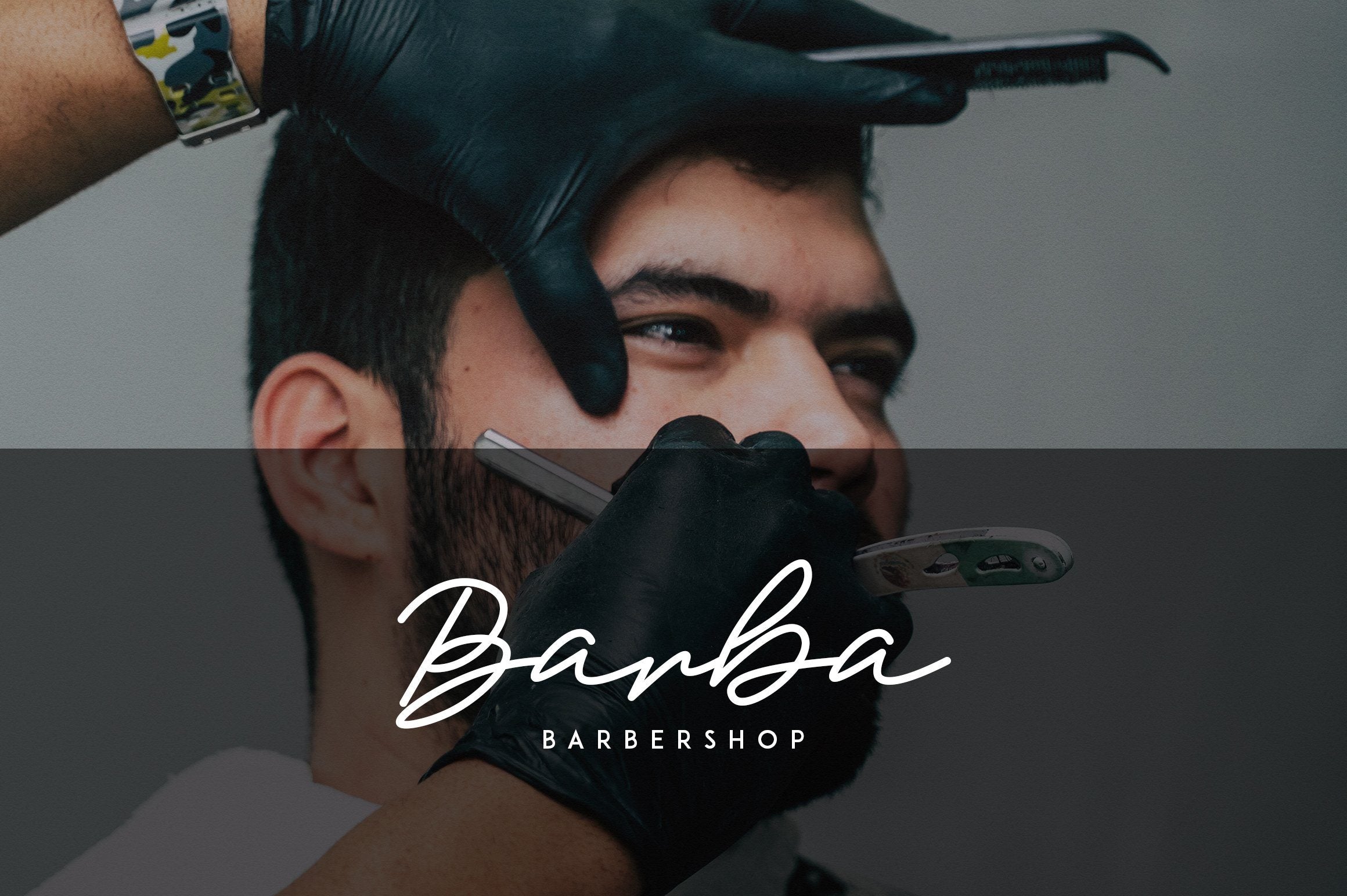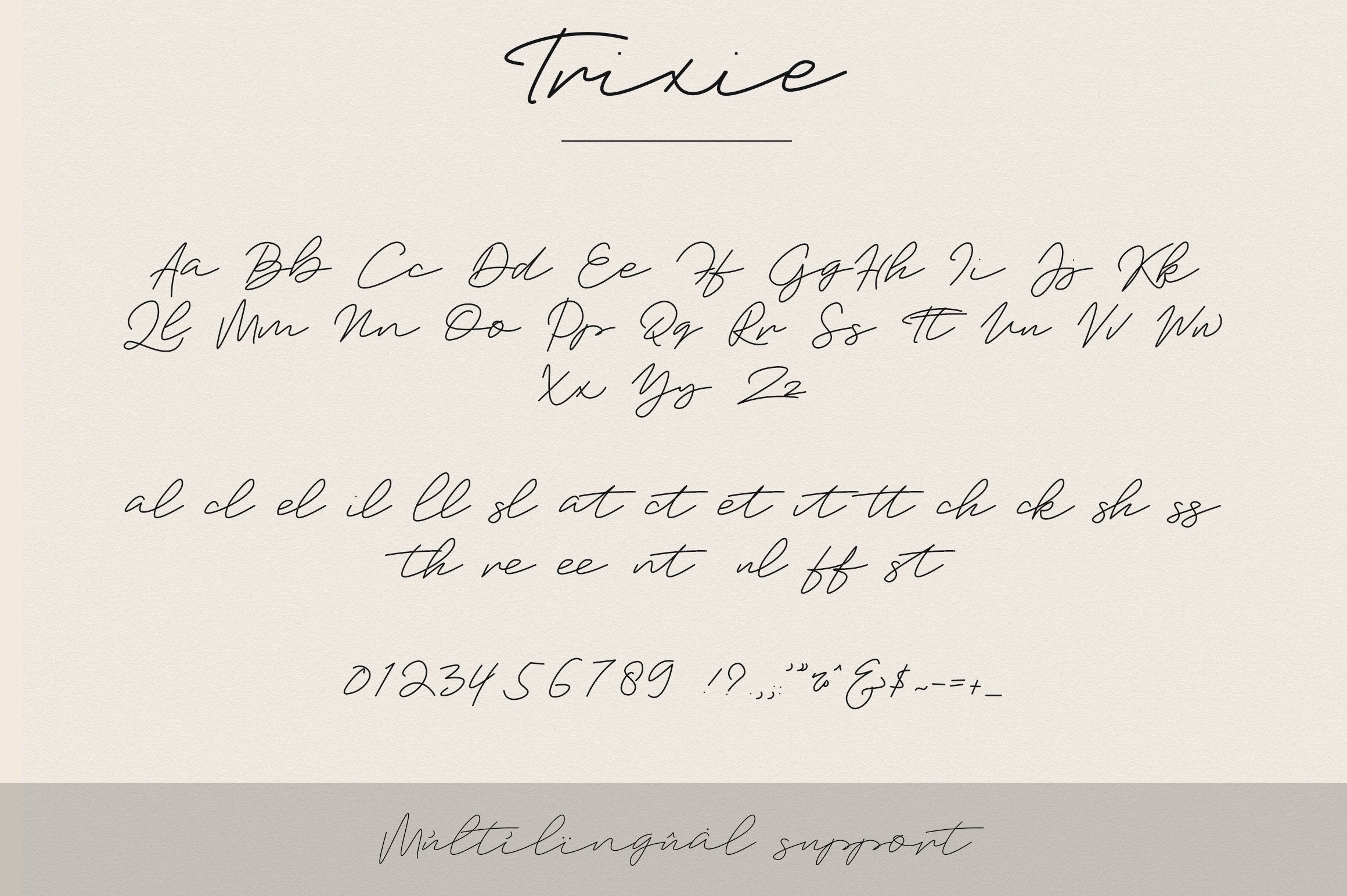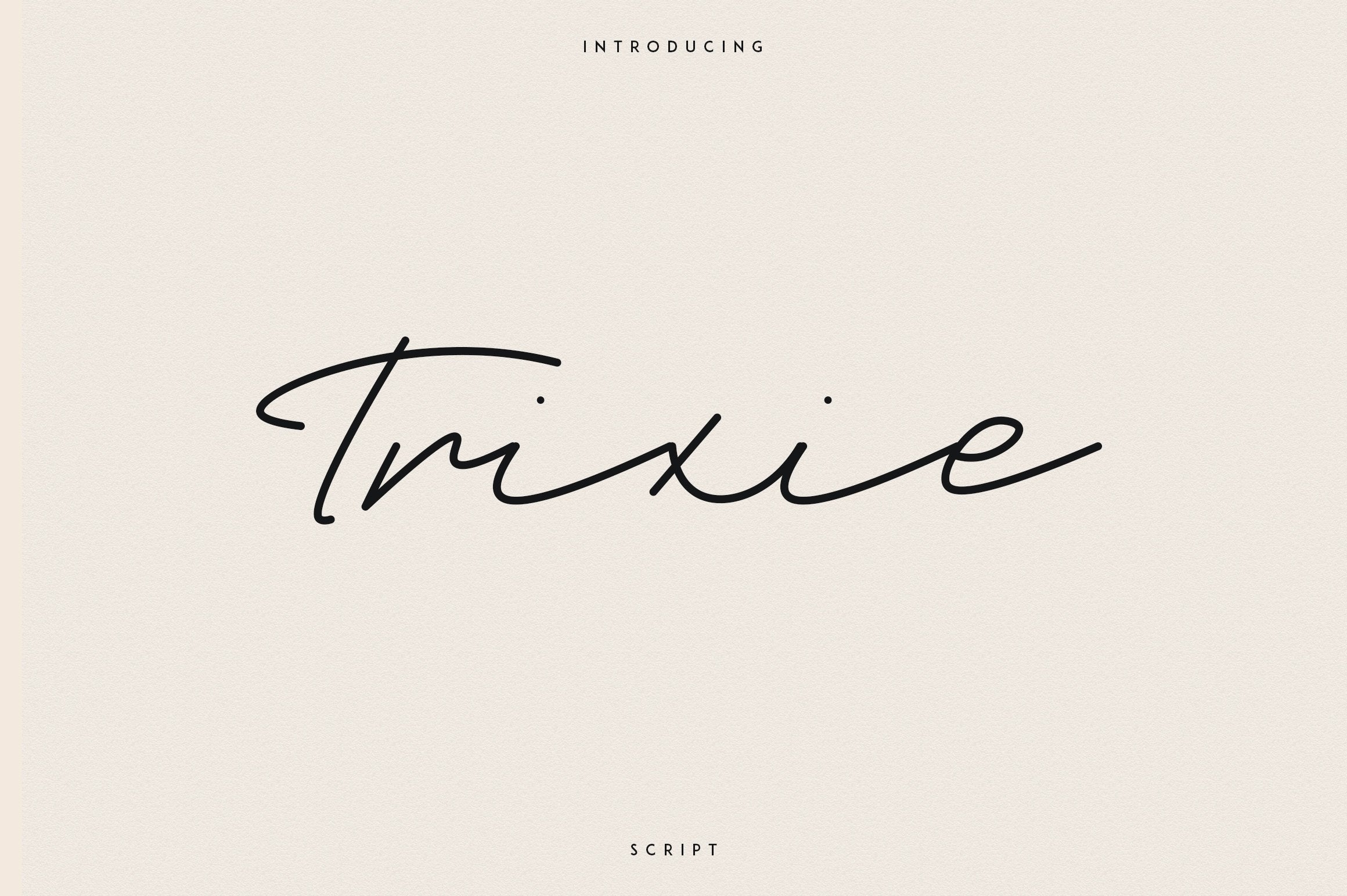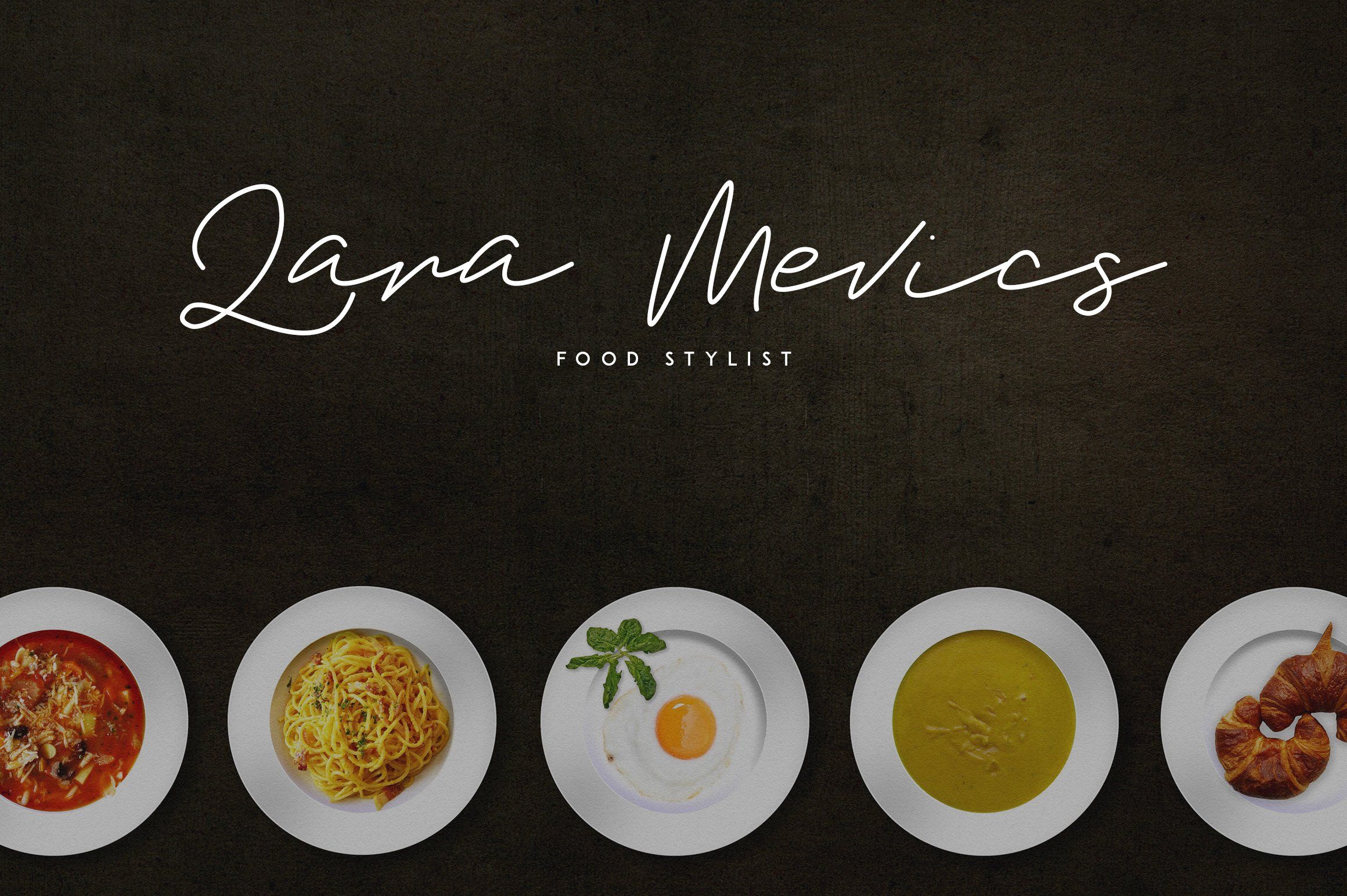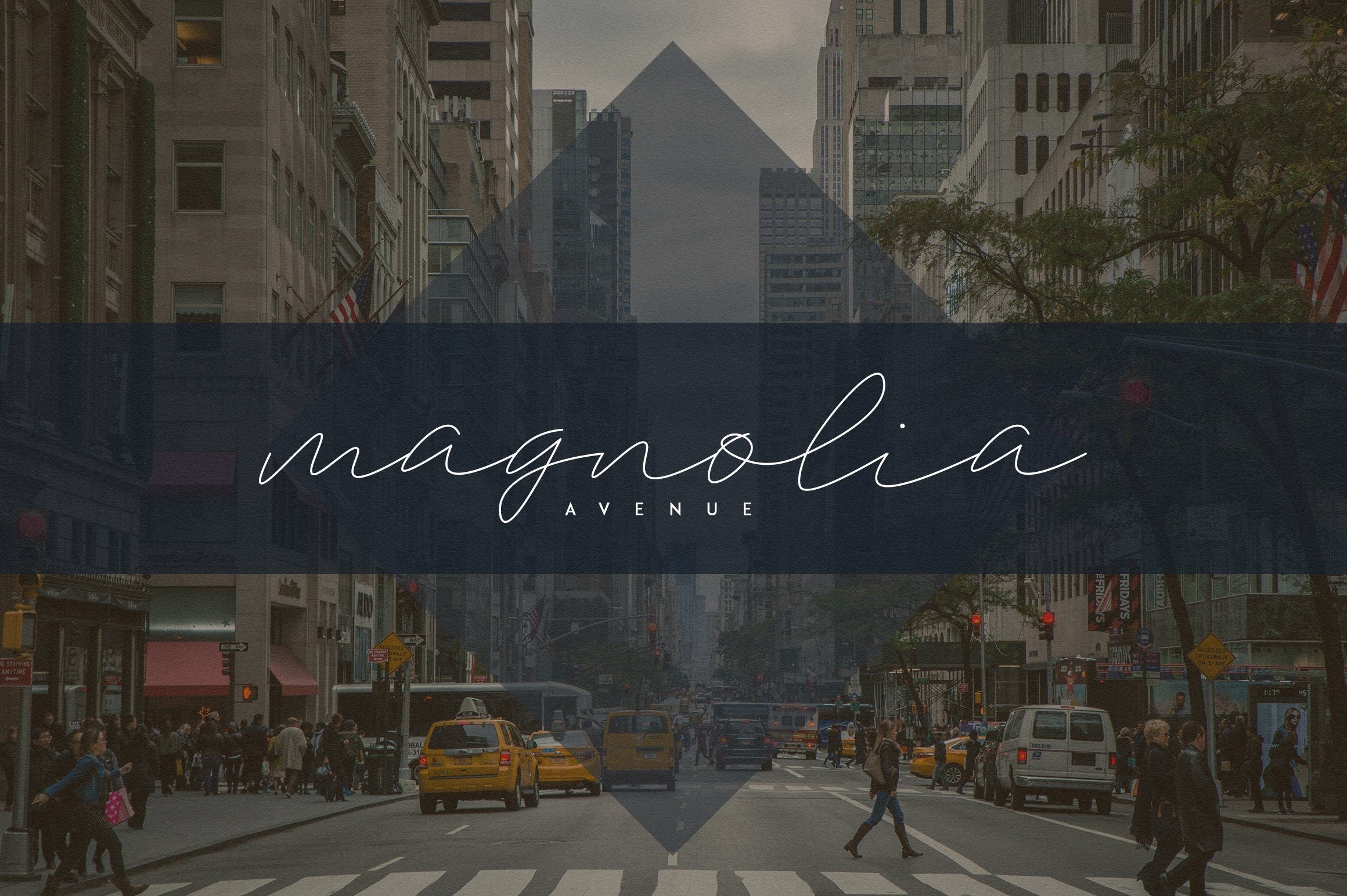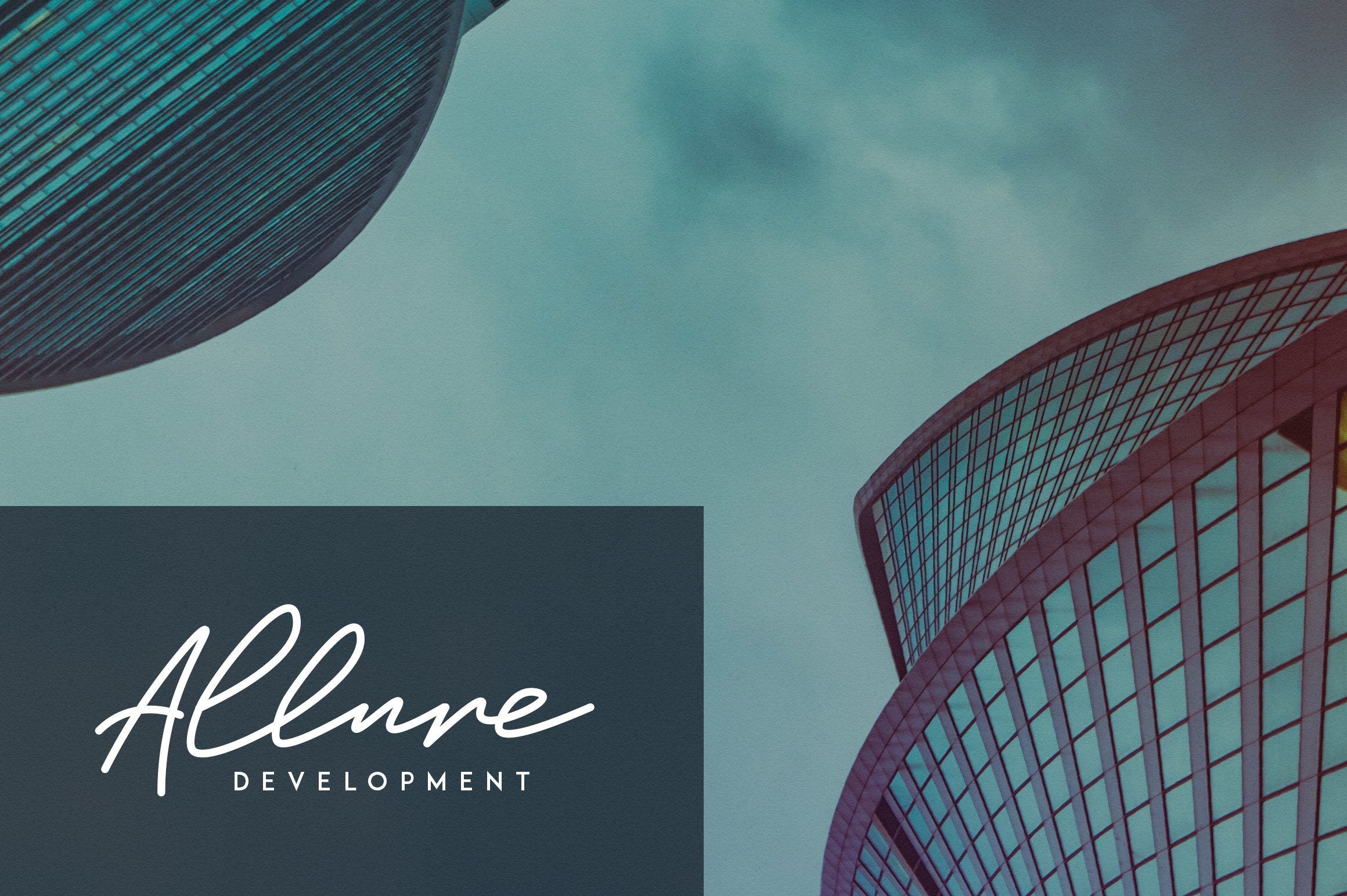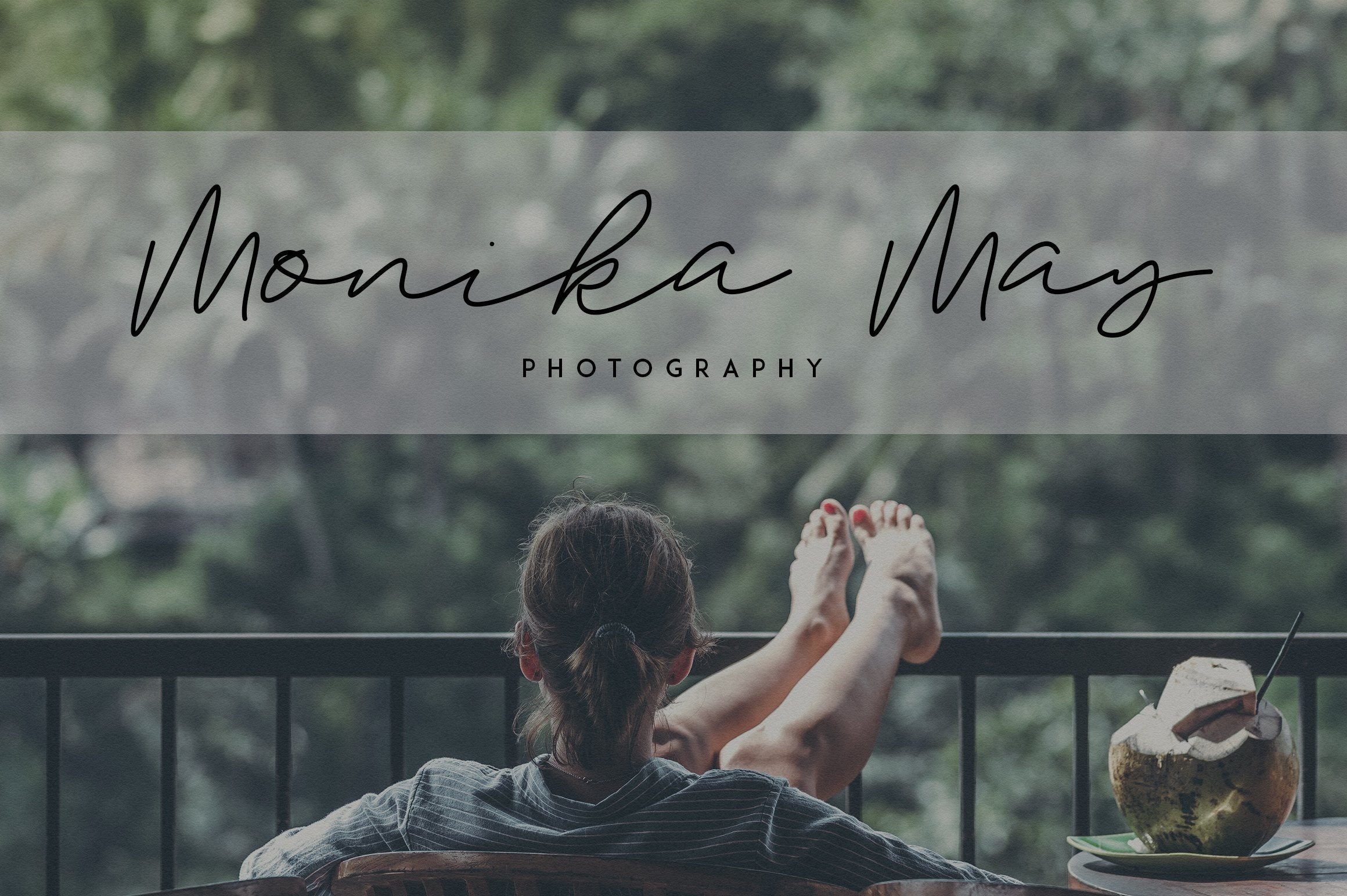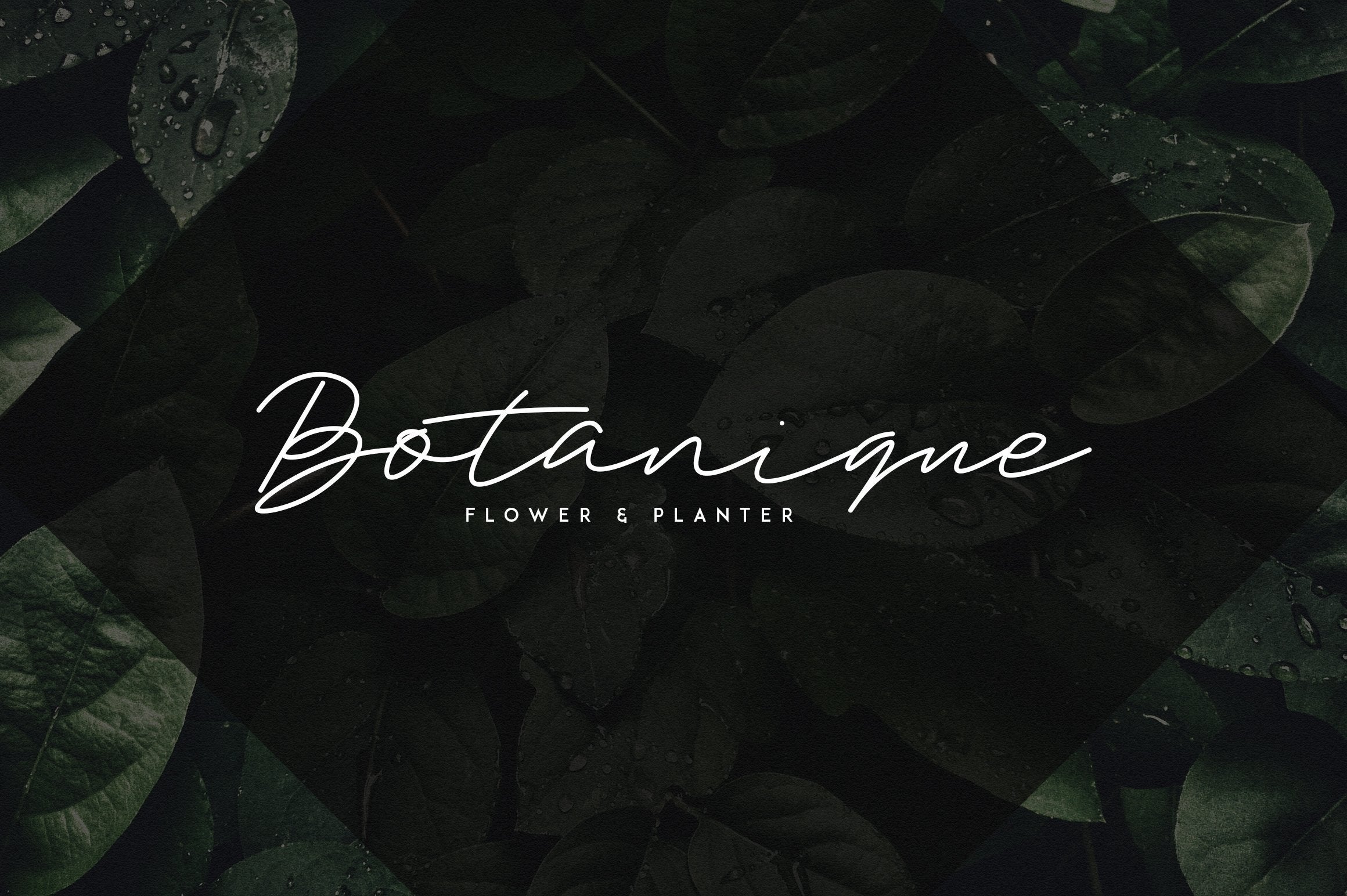
Trixie Script – 3 Weights
About Trixie Script – 3 Weights
Introducing Trixie Script Trixie is signature, clean typeface with 3 weights and multilingual support. It’s a very versatile font that works great in large and small sizes. Trixie is perfect for branding projects, home-ware designs, product packaging, magazine headers – or simply as a stylish text overlay to any background image. Uppercase,lowercase,numeral,punctuation & Symbol Multilingual Light Regular Bold Alternatives Ligatures Natural feel Feel free to contact me if you have any questions! Mock ups and backgrounds used are not included! Thank you! Enjoy!